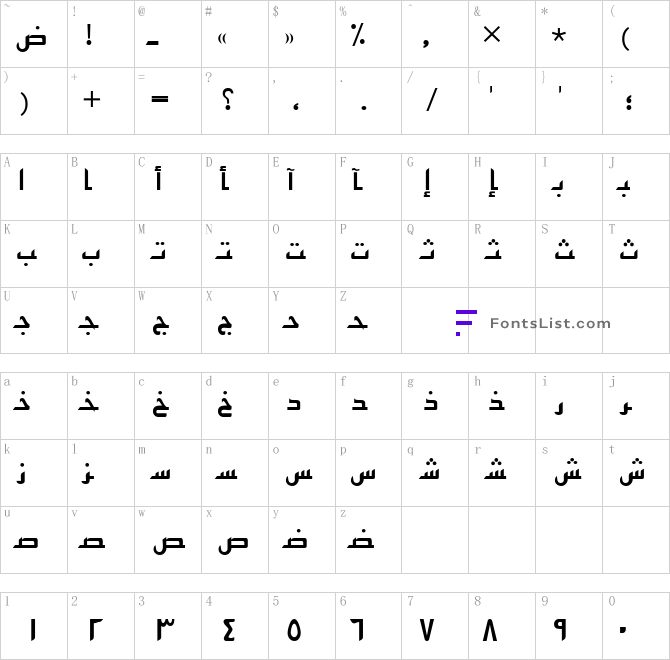
- Font Name:ArabicSans
ArabicSans-copy-1-.ttf is a very beautiful artistic font, ArabicSans-copy-1-.ttf is widely used in the design and printing of various books and pictures,ArabicSans-copy-1-.ttf has a strong visual impact,ArabicSans-copy-1-.ttf is a commonly used font in newspapers, magazines and books, and is used in posters, e-commerce Poster design, store design, logo design, font design and other fields.ArabicSans-copy-1-.